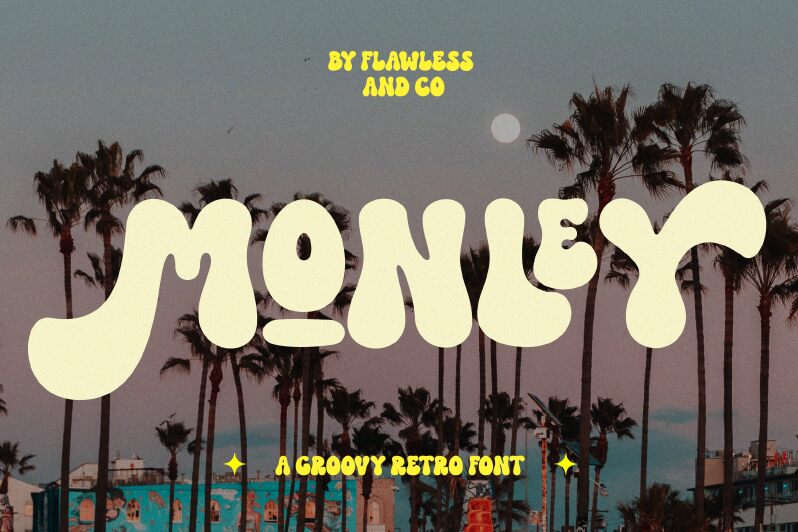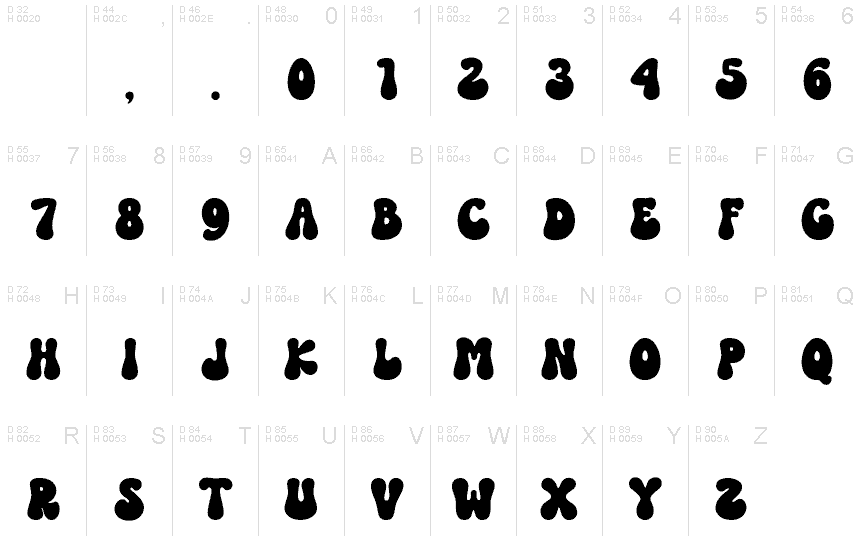
MONLEY Regular
Monley font, a groovy display creation by Achmad Yani from Flawless and Co., embodies a retro vibe with bold impressions. Its organic shapes and 1960s influence make it perfect for evoking nostalgia while maintaining a modern touch. The playful yet robust style brings visually impactful designs to life, offering versatility in various contexts.